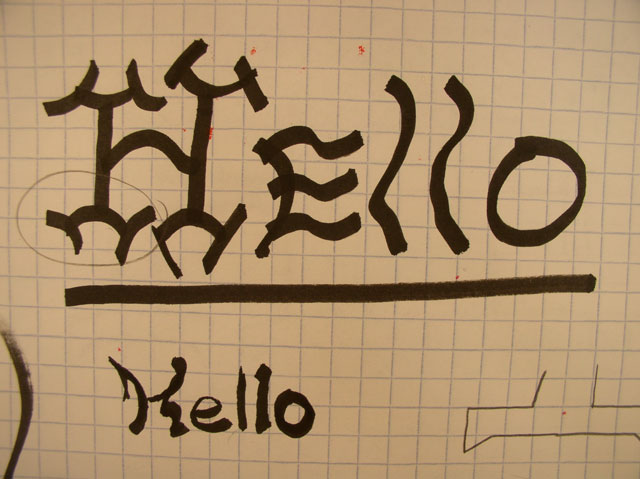
Shut up and listen final result
|  | Terence McKeown - hello
The concept of developing a diverse collection of original type specimens proved very difficult this week. The scope and message of the project became more limited and focused from it's direction on day one, from one which questioned individual identity from the perspective of a social and universal whole, to one which sought to ask the question, "Who am I (typographically speaking)?" of the man-on-the-street. The appropriated form of the iconic "Hello, My name is ..." stickers that appear in so many informally-coordinated social gatherings became the basis for my experiment in individual typographic choice .
The end goal of my type development was to present strangers in our city's densest urban neighborhood with a message of friendship and community. The message (one that all too often goes unspoken) is the simplest of greetings in the English language: "Hello."
By befriending travelers through the frenetic environment and offering them a choice of typographic forms to express their individuality (and commonality,) I sought to create a deeper level of human interaction within the urban space while asking questions about the extroverted typography of the individual. | |